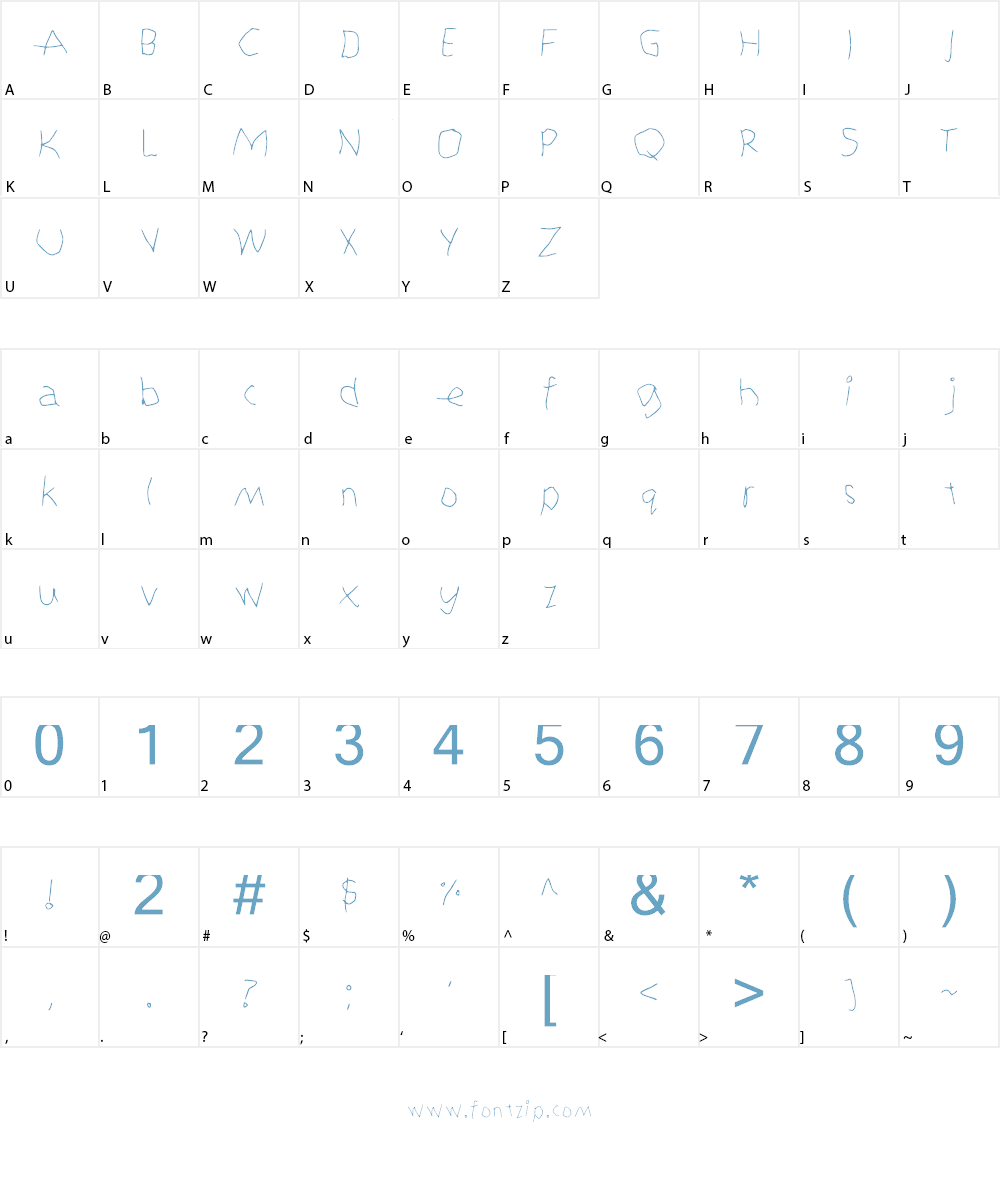
Honestly you can just write by hand, but why when you have a veRi NiEC piCA?! This font will get you your soulmate, a nobel prize, a dab certificate, a Swedish potato, a MacBook, and so many more! Try it now!